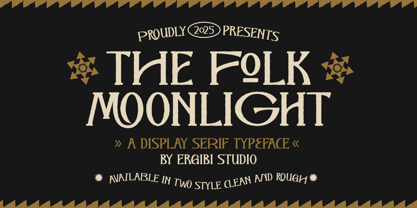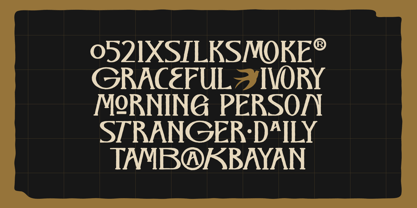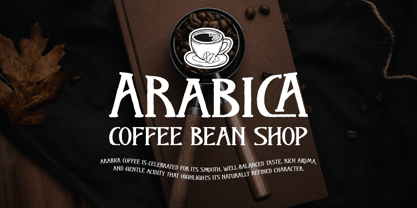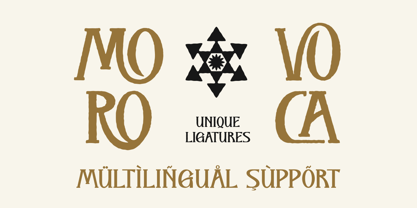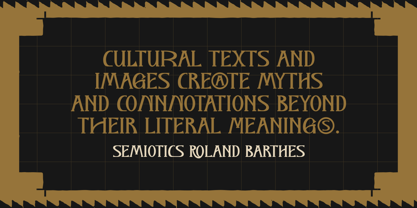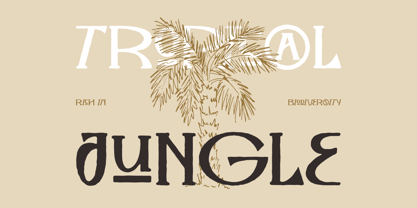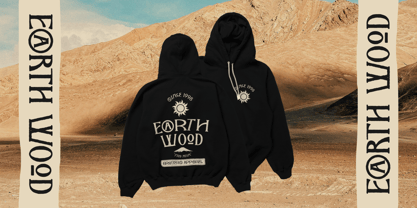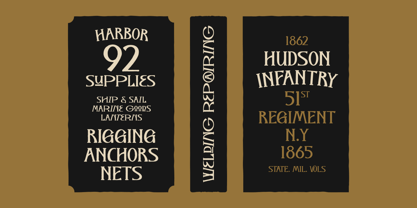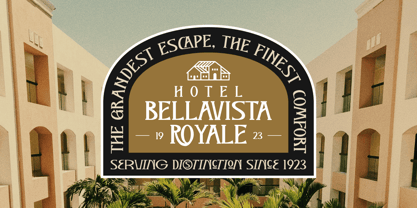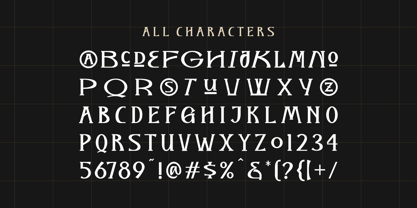
The Folk Moonlight
by Ergibi Studio
The The Folk Moonlight Font Family was designed by Riyadh Rahman and published by Ergibi Studio. The Folk Moonlight contains 2 styles and family package options. More about this family
The Folk Moonlight is a display serif featuring strong vintage-inspired shapes, textured details, and handcrafted character. Designed for standout titles and impactful branding, this typeface delivers an authentic rustic aesthetic suitable for packaging, editorial layouts, apparel design, signage, and logo work. Its structured forms and organic edges offer both readability and distinctive personality, making it ideal for projects that need a bold, heritage-driven look. If there is a problem, question, or anything about my fonts, don't hesitate to ask! Ergibi Studio